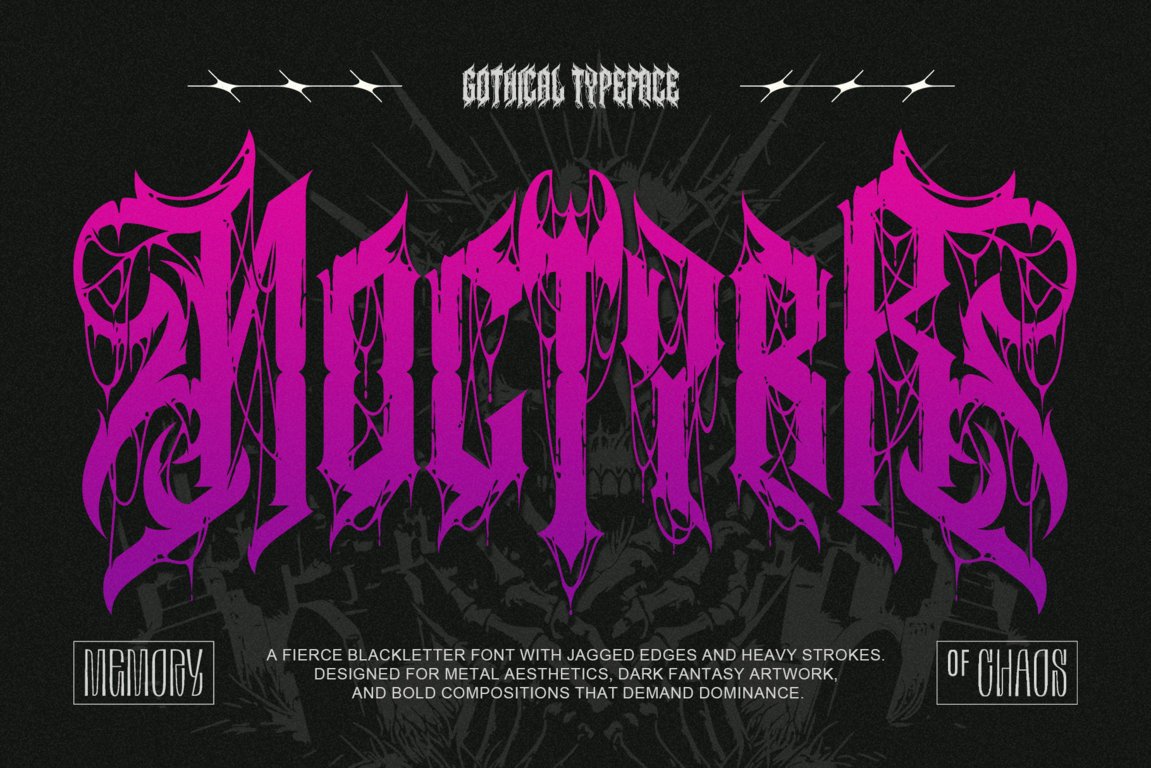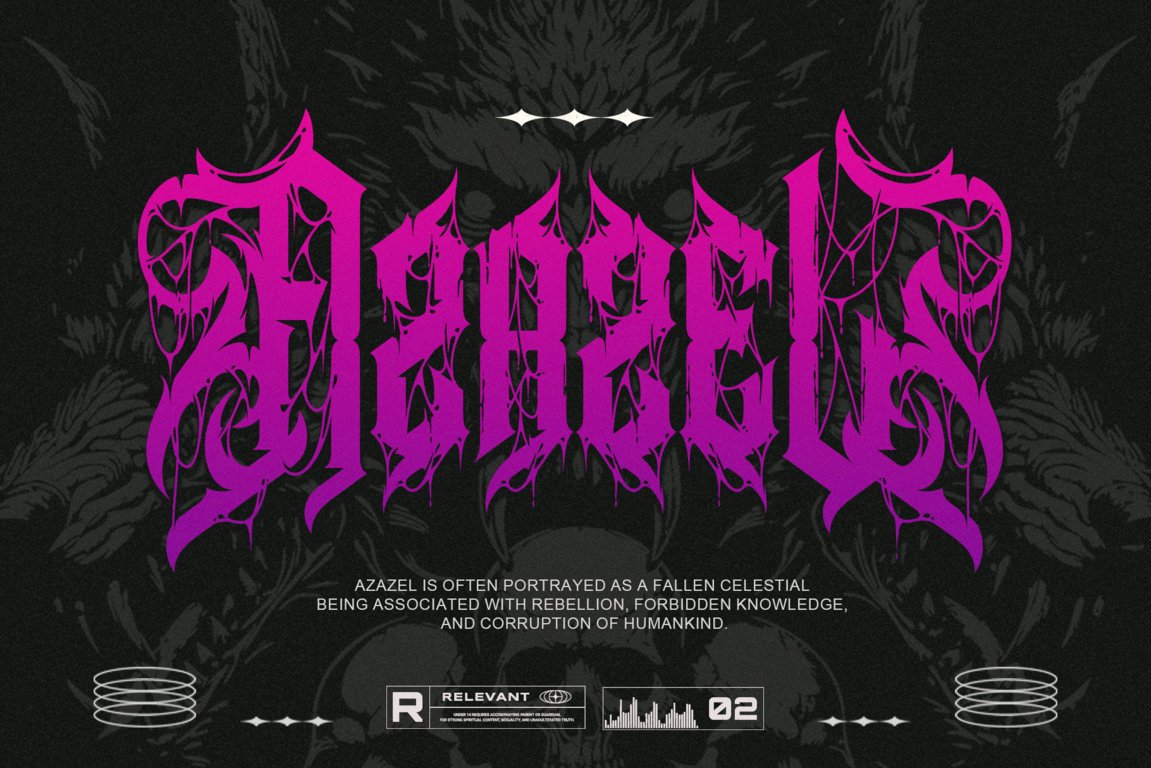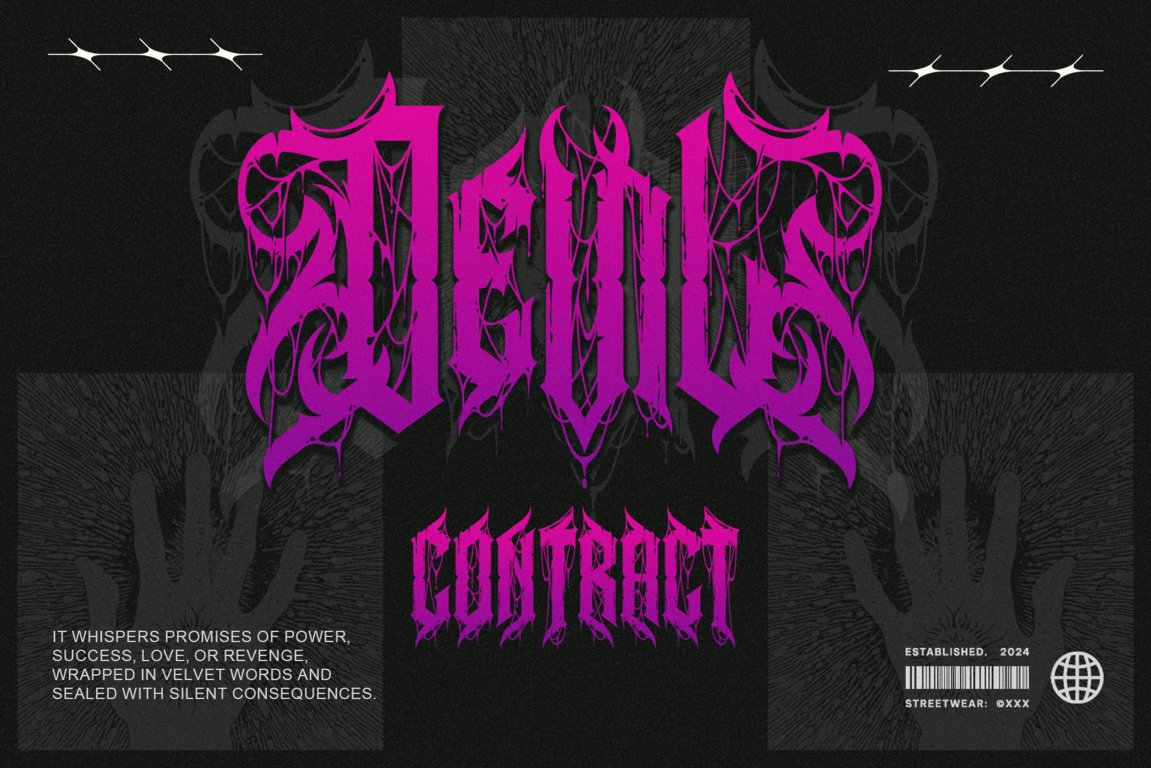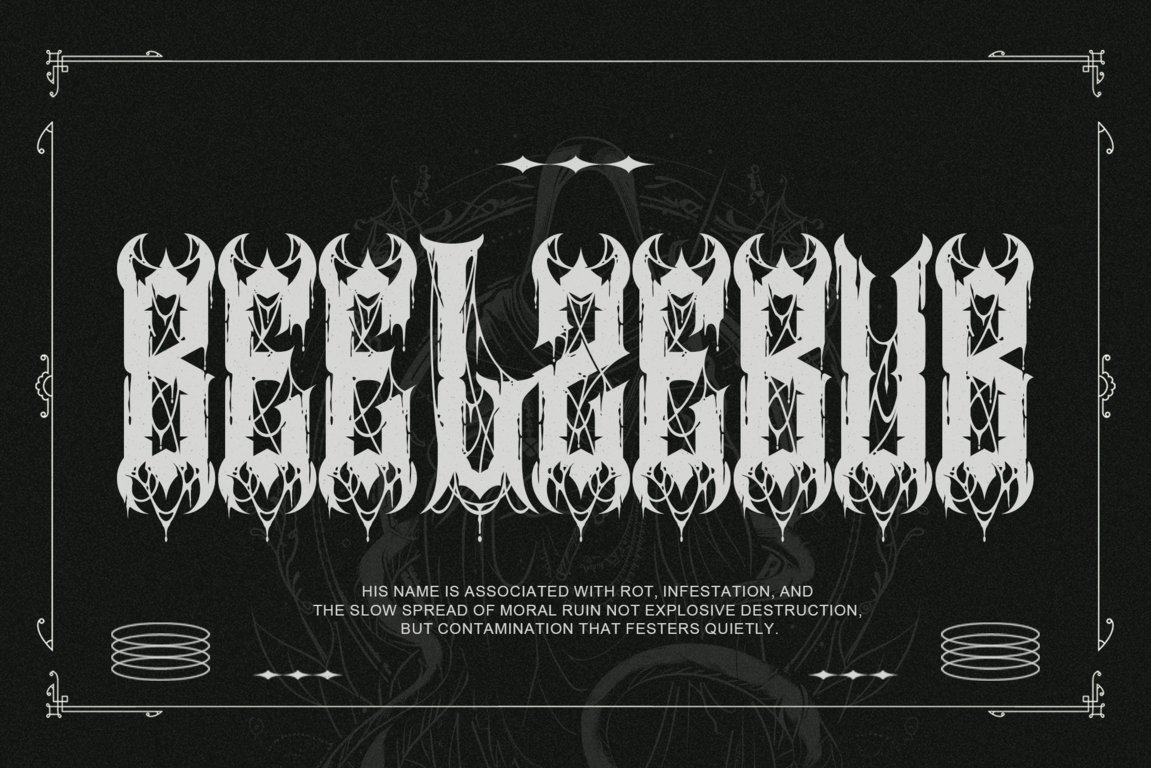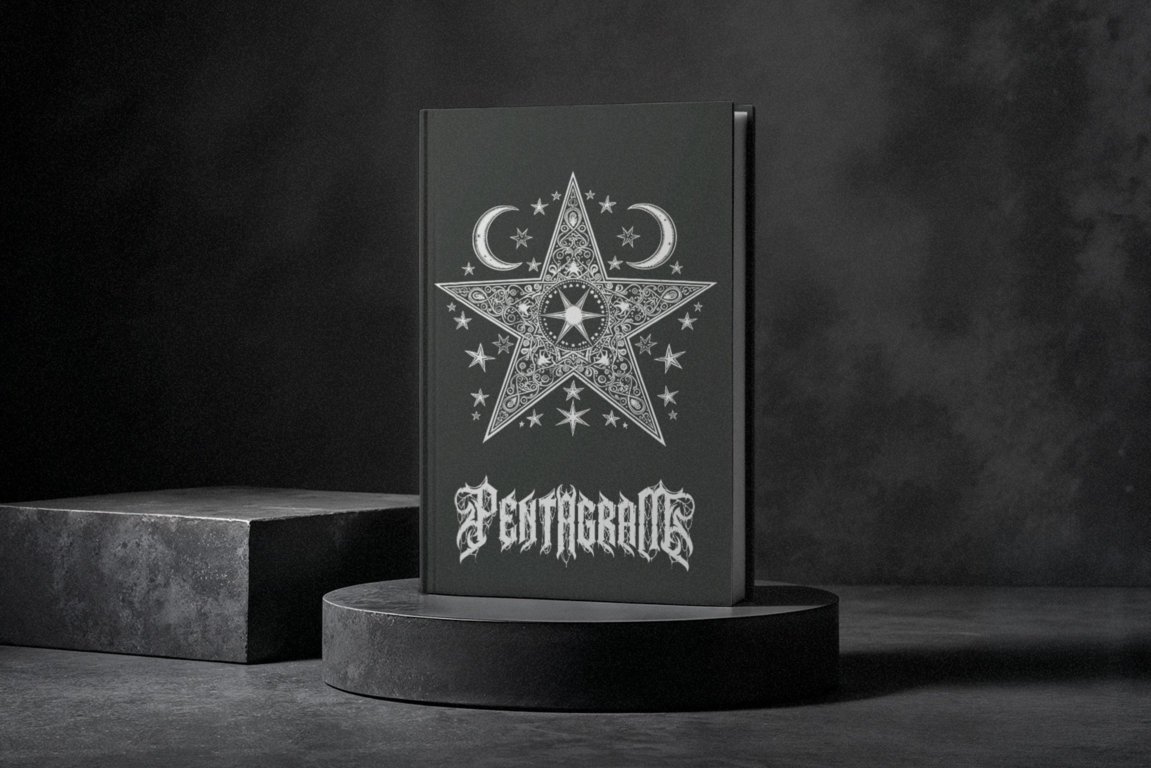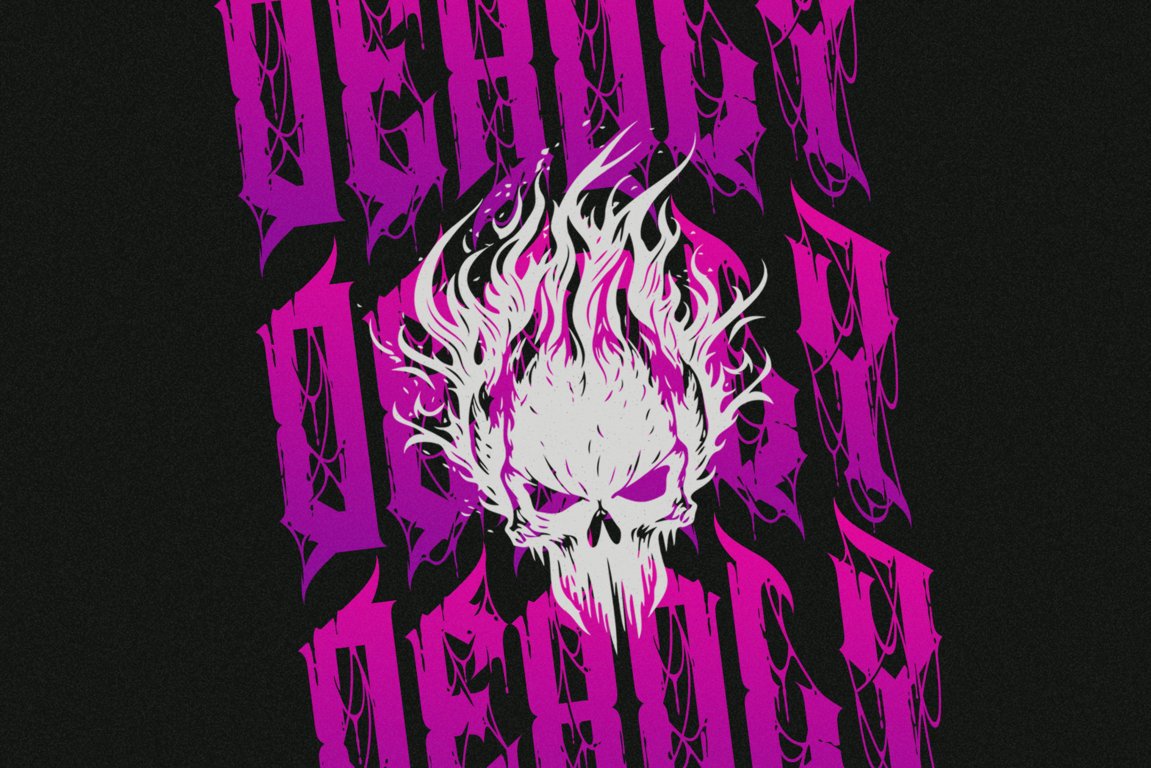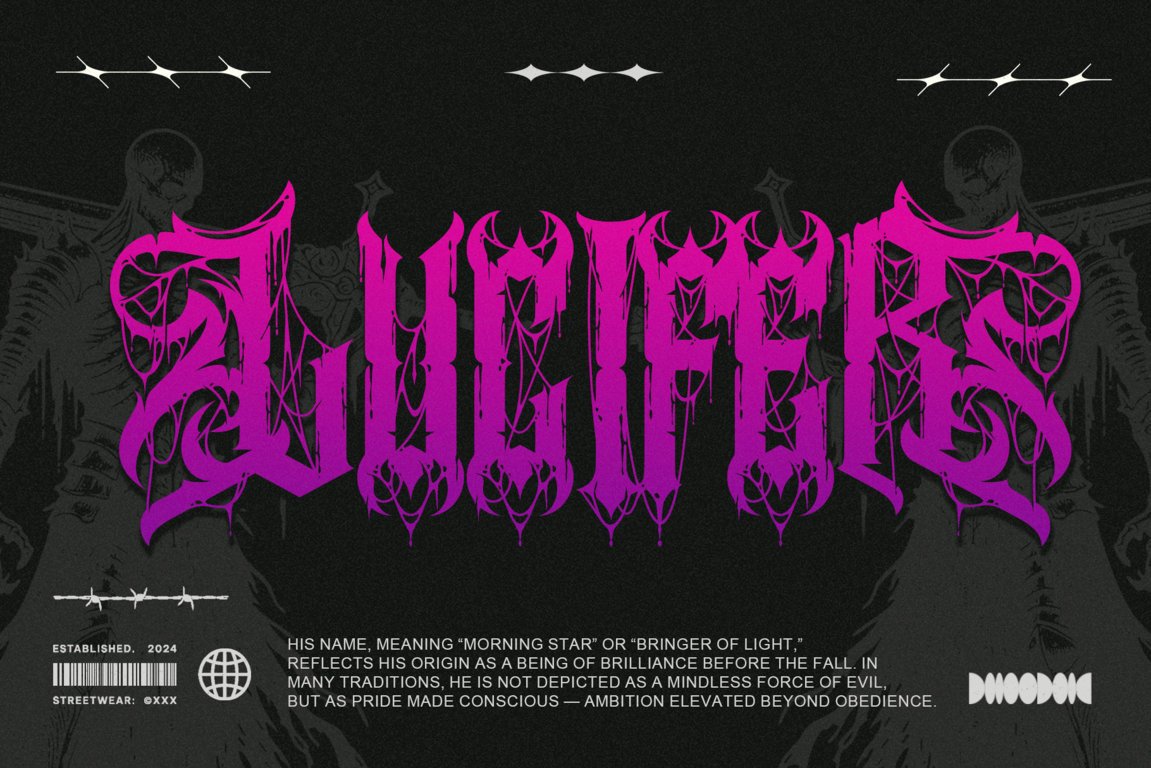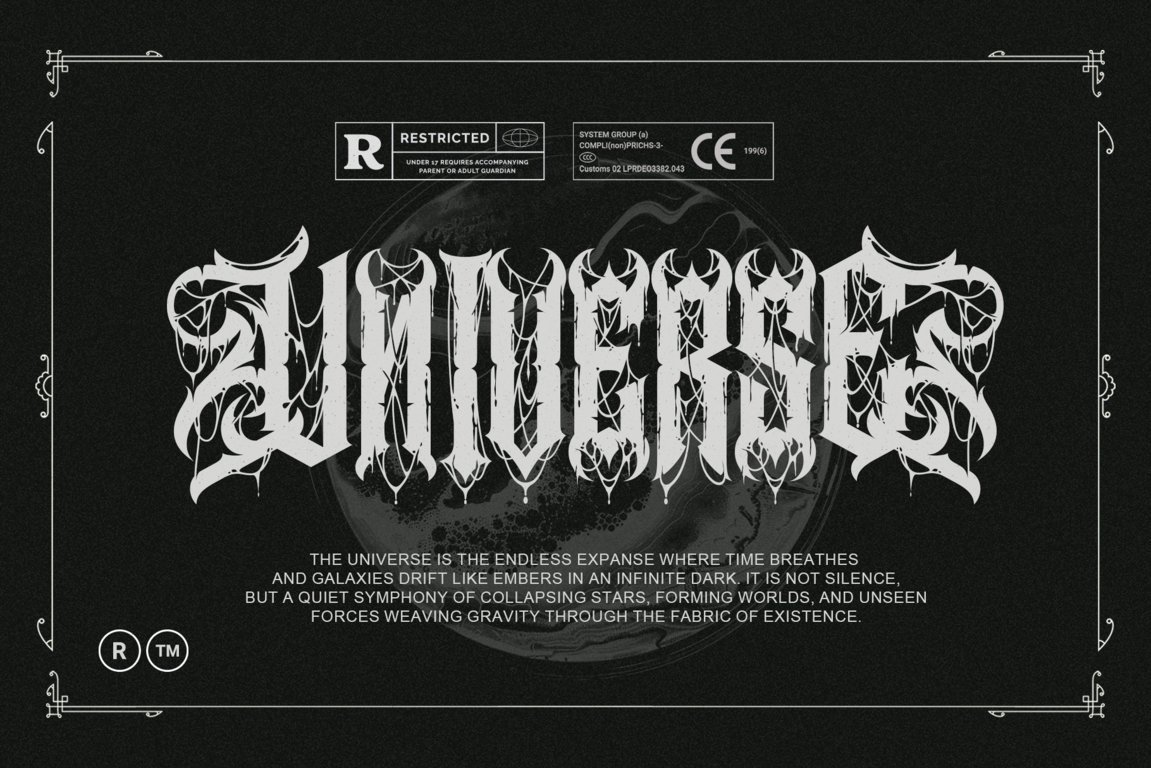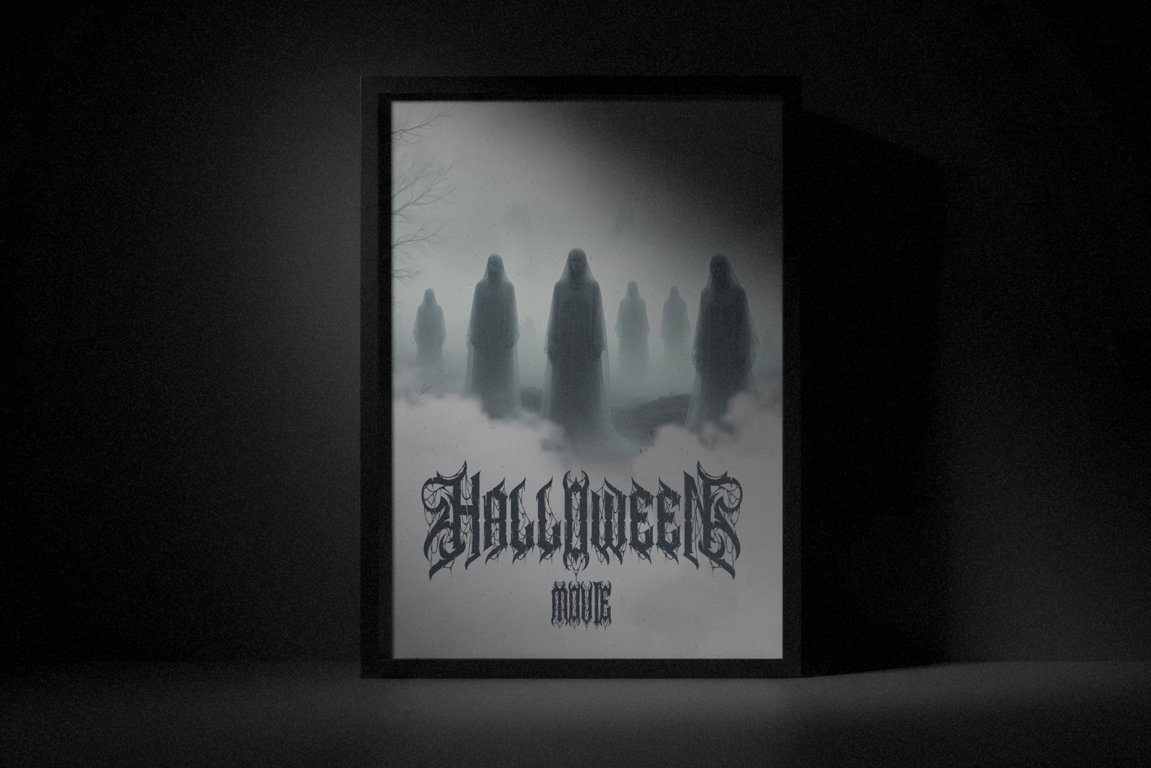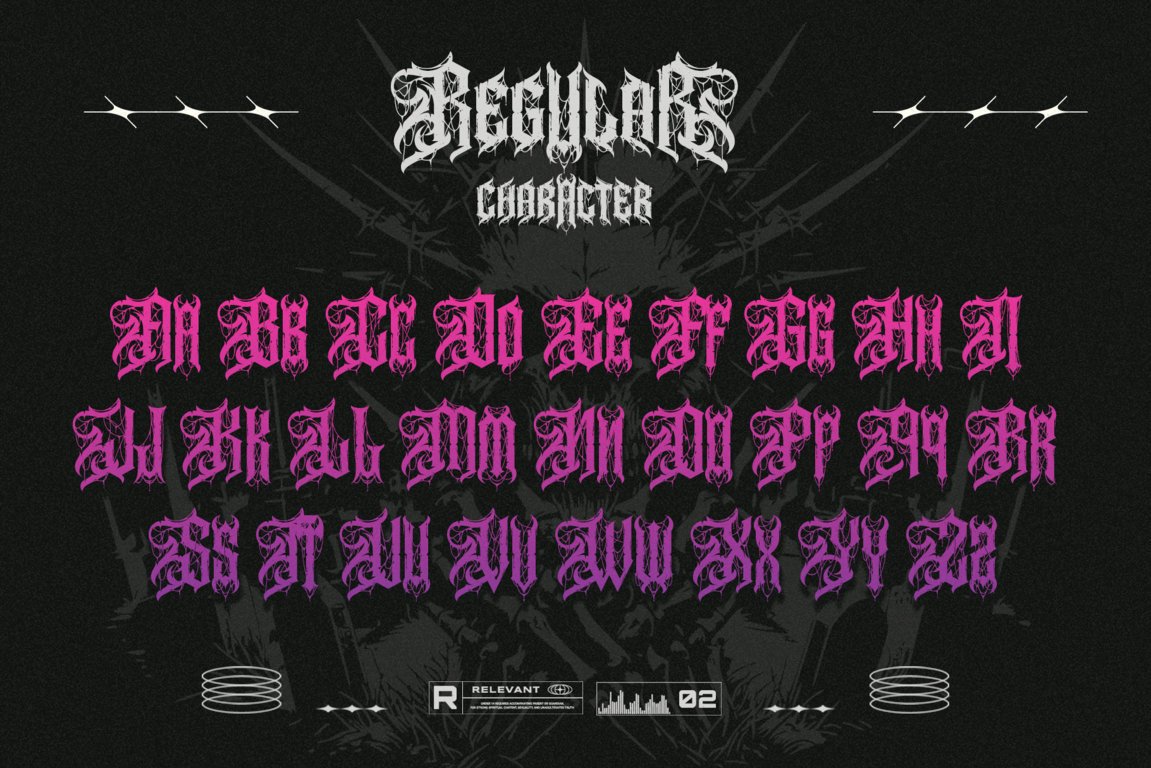
Enter the abyss of unrelenting darkness with Noctyrr, a savage blackletter font forged in chaos, ritual, and raw metal energy. Born from fractured cathedral spires and drenched in nocturnal fury, Noctyrr is not merely written—it is unleashed. Every jagged stroke tears through silence. Every blade-like serif drips with intensity. This is typography sharpened into a weapon.
Designed with aggressive edges, heavy vertical weight, and venomous symmetry, Noctyrr embodies extreme gothic aesthetics and modern metal brutality. Perfect for band logos, album covers, dark fantasy titles, horror visuals, underground branding, tattoo lettering, and cinematic compositions that demand dominance, this font commands immediate attention with unapologetic force.
Noctyrr transforms words into sigils of power—each glyph carved like a relic of forbidden scripture, each letter radiating chaos and authority. Where darkness gathers, and noise becomes legend, Noctyrr stands at the throne of shadow.